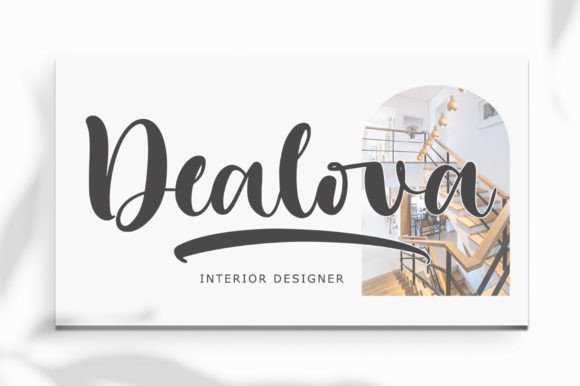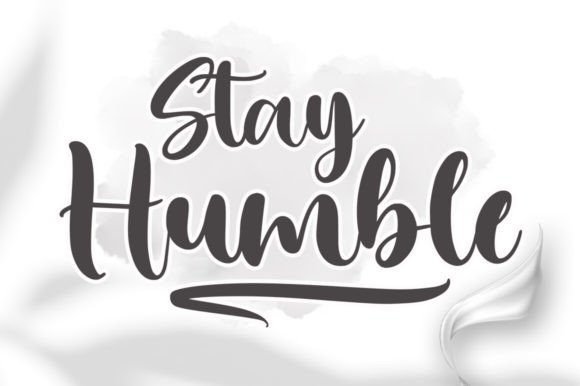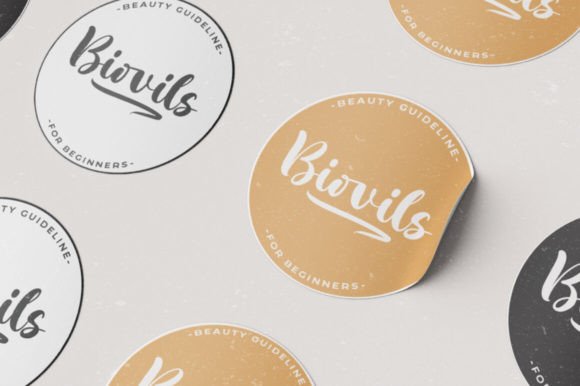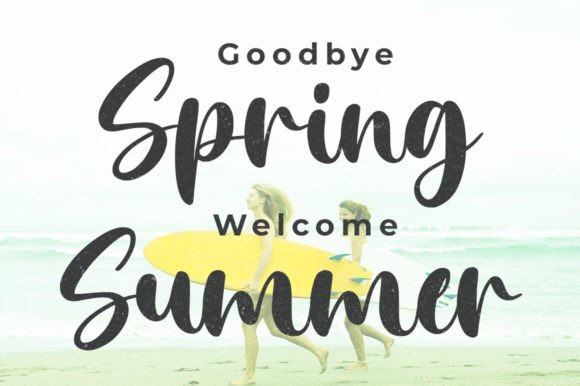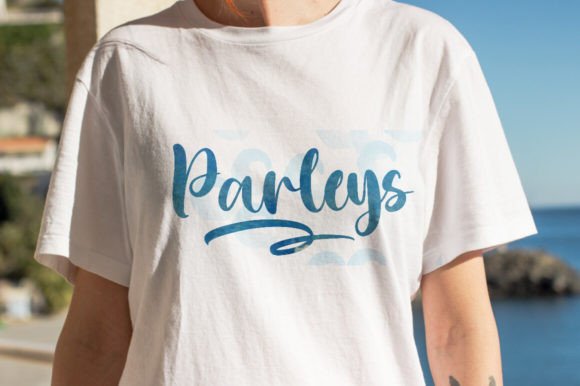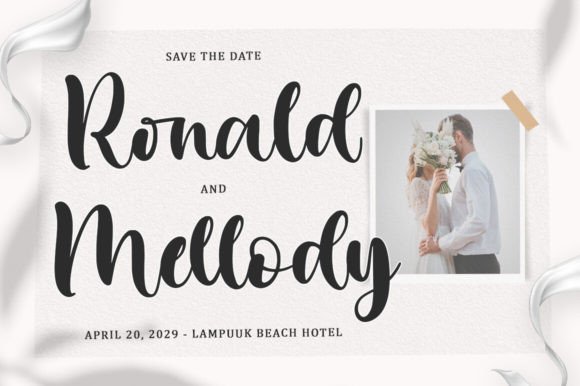
Introduction to Salling Script Font
Salling Script and Underline is a handwritten font with a modern calligraphic feel.
Salling Script and Underline are perfect for modern projects, business cards, headers, blogs, logos, branding, invitations, and more .
Key Features of Salling Script Font
Why Choose Salling Script Font?
Salling Script Font offers exceptional quality and versatility, making it a valuable addition to your design toolkit. Whether you’re creating for personal projects or commercial use, Salling Script Font delivers professional results.